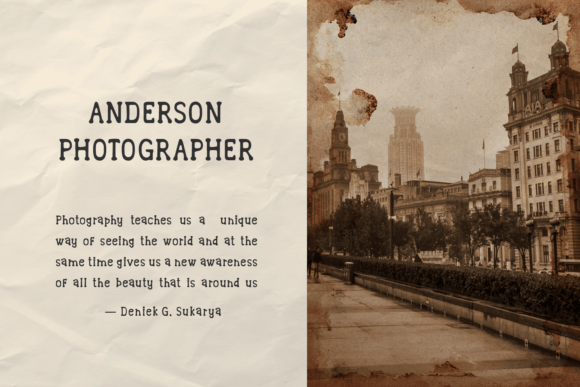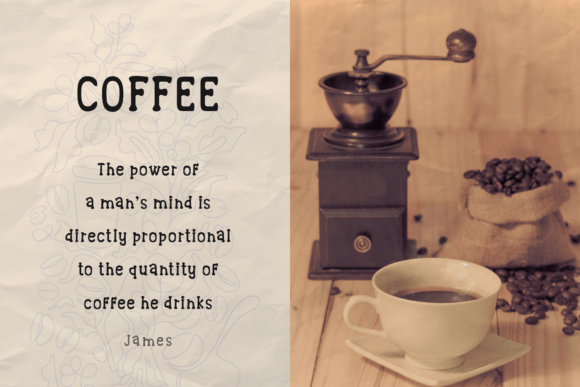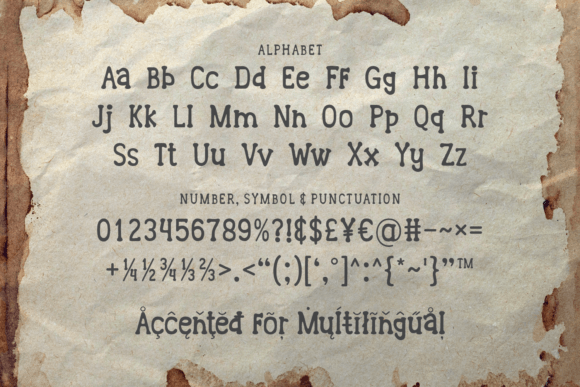
Discover the Timeless Elegance of Antique Collection Font
In the world of typography, few fonts evoke the same level of sophistication and nostalgia as the Antique Collection Font. This vintage serif font is a masterful recreation of classic typography from the late 19th and early 20th centuries, bringing a touch of elegance and refinement to any design project. Whether you’re a designer, craftsperson, or simply someone who appreciates the beauty of fine typography, the Antique Collection Font is sure to captivate and inspire.
The Inspiration Behind Antique Collection Font
The Antique Collection Font is inspired by the ornate and refined typography of bygone eras. During the late 19th and early 20th centuries, printing technology was advancing rapidly, and typographers were experimenting with new and innovative ways to create beautiful, high-quality print materials. The result was a range of stunning serif fonts, characterized by intricate details, elegant lines, and a sense of sophistication that was previously unmatched.
The Antique Collection Font captures the essence of this era, distilling the timeless charm and refinement of antique print materials into a single, versatile font. With its classic lines, ornate details, and nostalgic appeal, this font is perfect for designers and craftspersons who want to add a touch of old-world elegance to their work.
Key Features of Antique Collection Font
So, what makes the Antique Collection Font so special? Here are just a few of its key features:
- Vintage serif design: The Antique Collection Font features a classic serif design, with elegant lines, ornate details, and a sense of refinement that’s hard to find in modern fonts.
- Timeless charm: This font has a timeless quality that’s hard to resist. Whether you’re designing a wedding invitation, a packaging label, or a editorial spread, the Antique Collection Font adds a touch of nostalgia and sophistication that’s sure to captivate your audience.
- Versatility: The Antique Collection Font is incredibly versatile, making it perfect for a wide range of design projects. Use it for editorial design, branding, packaging, or any other project that requires a touch of elegance and refinement.
- Ease of use: Despite its intricate details and ornate design, the Antique Collection Font is surprisingly easy to use. Whether you’re a seasoned designer or a craftsperson with limited typography experience, you’ll find that this font is simple to work with and quick to master.
Perfect for Designers and Craftspersons
The Antique Collection Font is a dream come true for designers and craftspersons who want to add a touch of elegance and sophistication to their work. Here are just a few ways you can use this font:
- Editorial design: Use the Antique Collection Font to add a touch of refinement to your editorial designs, whether you’re working on a magazine spread, a book layout, or a newspaper article.
- Branding: Create a lasting impression with your brand identity by using the Antique Collection Font in your logos, letterheads, and other marketing materials.
- Wedding invitations: Add a touch of nostalgia and romance to your wedding invitations with the Antique Collection Font. This font is perfect for creating beautiful, bespoke invitations that will set the tone for your special day.
- Packaging: Use the Antique Collection Font to add a touch of elegance to your packaging designs, whether you’re working on a label, a brochure, or a point-of-sale display.
| Font Name | Antique Collection Font |
The Antique Collection Font is a true treasure for designers and craftspersons who appreciate the beauty of fine typography. With its timeless charm, elegant design, and versatility, this font is perfect for any project that requires a touch of sophistication and refinement. Whether you’re working on a editorial design, branding, wedding invitations, or packaging, the Antique Collection Font is sure to captivate and inspire. So why wait? Discover the timeless elegance of Antique Collection Font today and bring a touch of old-world charm to your design projects!